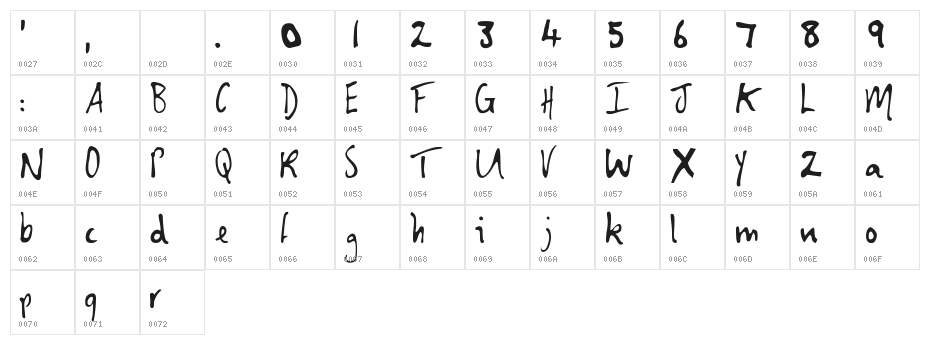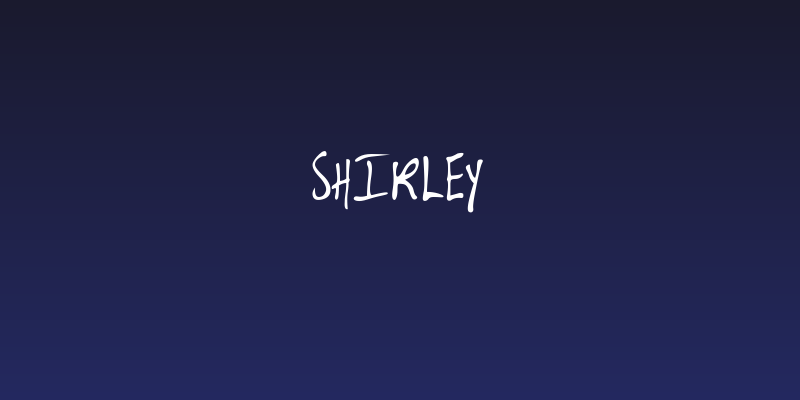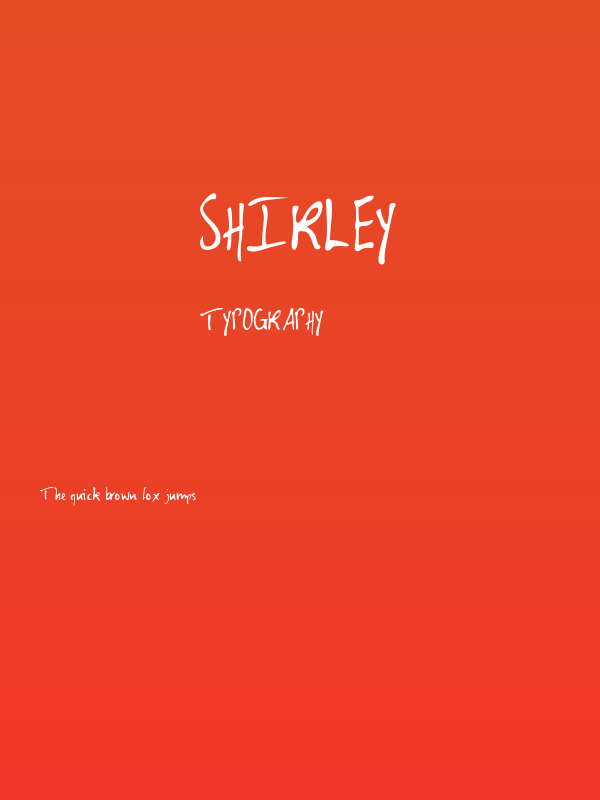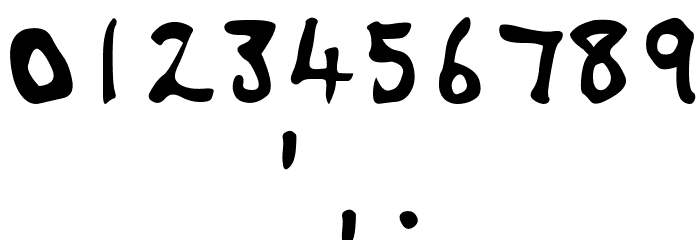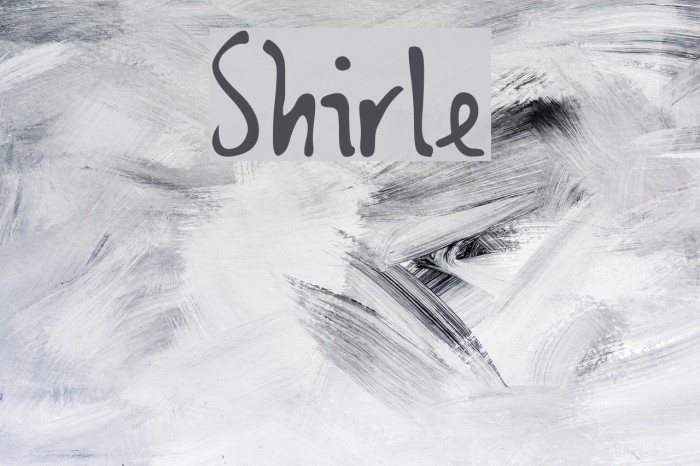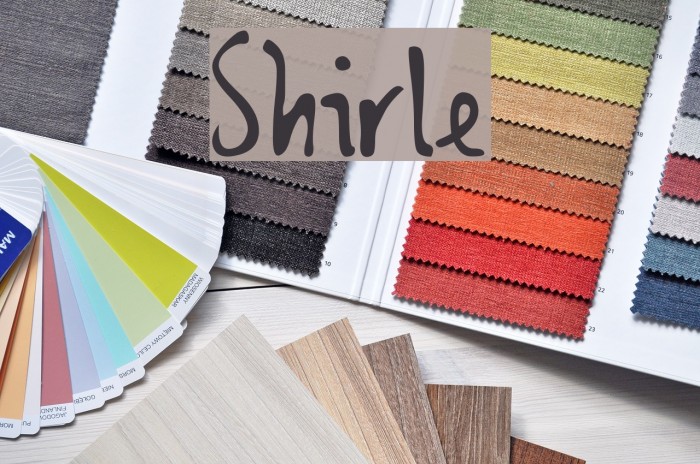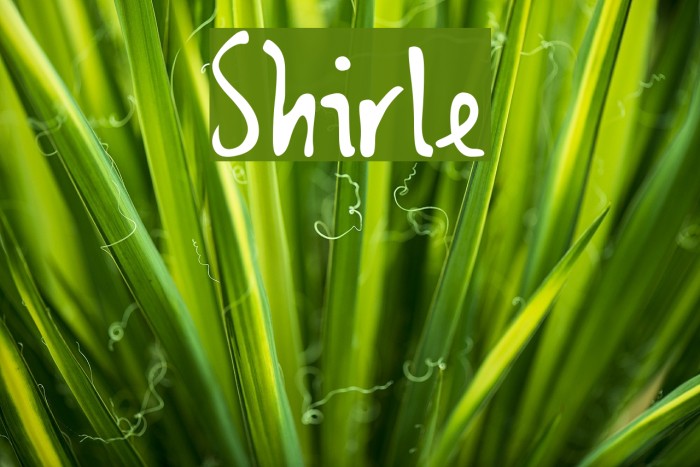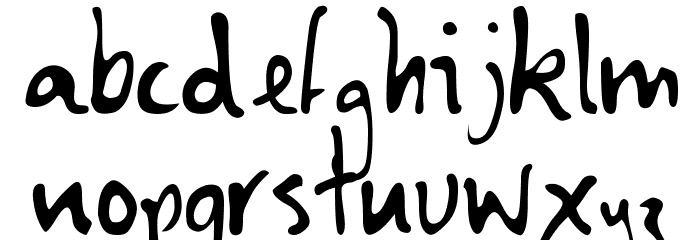
Shirley Font
Shirley Description
This font exhibits a playful and informal handwritten style, characterized by its irregular strokes and varying line thickness. The uppercase letters are bold and slightly tilted, giving a dynamic and energetic feel. Lowercase letters maintain a consistent flow with rounded edges, enhancing the casual appearance. Numbers are distinct and easily readable, while special characters retain the same whimsical quality. The overall design conveys a sense of spontaneity and creativity, making it suitable for projects that require a personal touch.
| Proposed Projects | Ideal for greeting cards, personal invitations, children's books, and creative branding. |